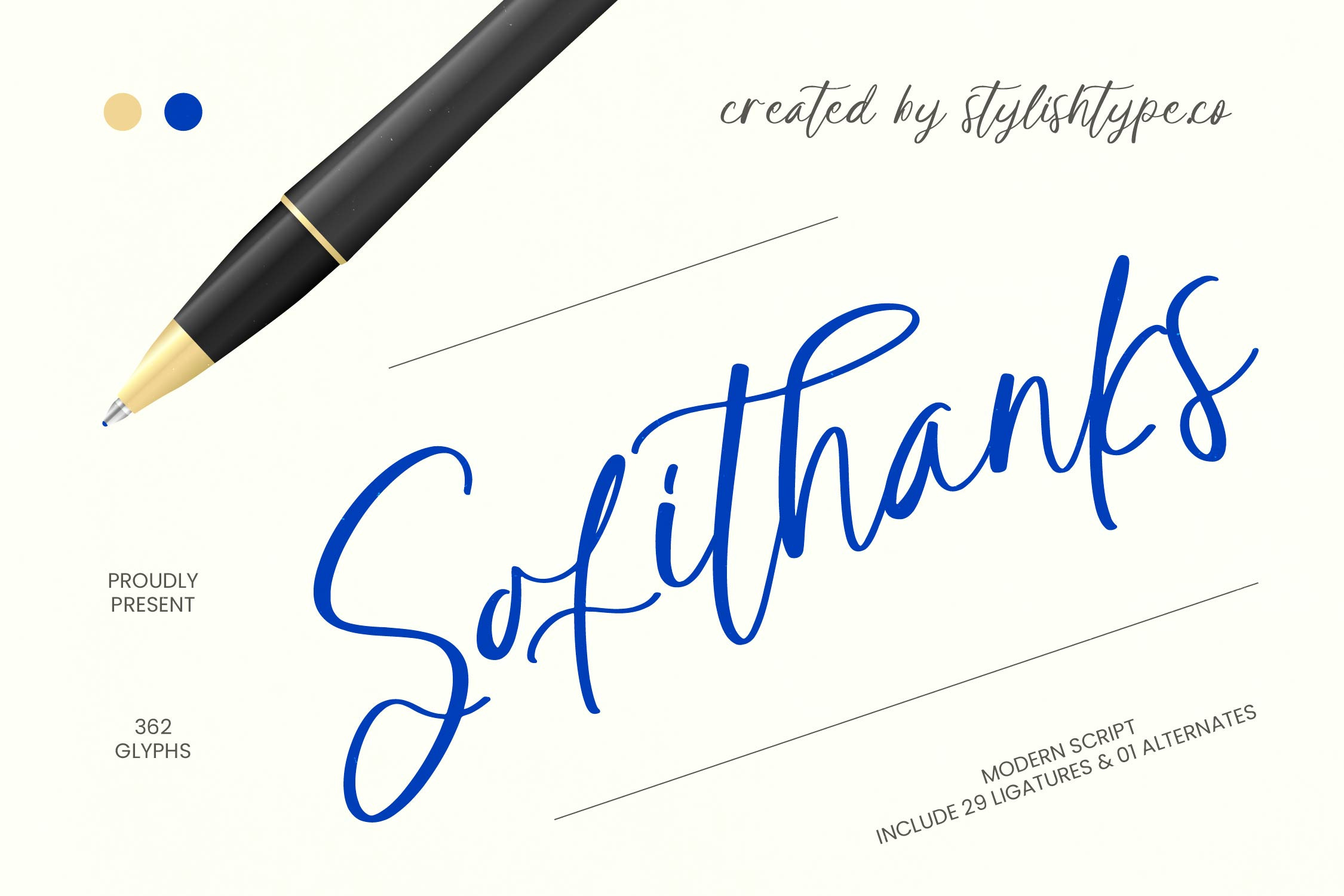
Sofithanks Modern Script Font
**Sofithanks - Modern Script Font , Elevate your design projects with a touch of contemporary elegance and refined artistry. Sofithanks - Modern Script Font stands as a premier choice for designers seeking a harmonious balance between a handwritten aesthetic and professional polish. Its fluid strokes and organic rhythm capture an authentic, artisanal feel that instantly brings a high-end look to any digital or print layout, ensuring your work stands out in a crowded market.
Unleash the full potential of your creative vision with a typeface specifically engineered for high-impact visual storytelling. Sofithanks - Modern Script Font is the perfect solution for luxury branding, sophisticated packaging, and high-end editorial design. Whether you are crafting bespoke wedding invitations, lifestyle photography overlays, or exclusive boutique logos, this font ensures your brand message is delivered with unmatched grace and sophistication.
Experience unmatched functionality and global reach with a robust set of typographic features designed for the modern era. With its extensive multilingual support, Sofithanks - Modern Script Font adapts seamlessly across global markets, making it incredibly versatile for international projects. Boasting a comprehensive library of 362 glyphs and 29 unique ligatures, it provides the technical flexibility needed to maintain brand consistency across diverse linguistic landscapes.
Transform ordinary text into a compelling visual narrative that resonates deeply with your target audience. By integrating Sofithanks - Modern Script Font into your toolkit, you are investing in a timeless design asset that prioritizes legibility without sacrificing its artistic flair. Its refined script style and modern silhouettes make it an essential resource for any creative professional looking to achieve a premium aesthetic and drive meaningful commercial engagement.